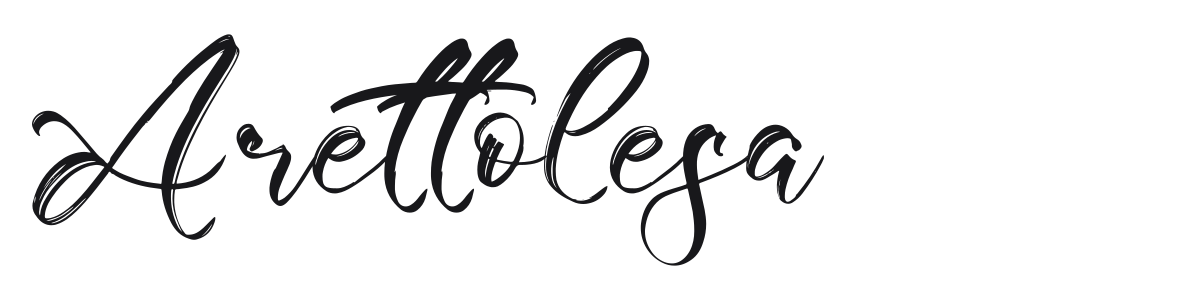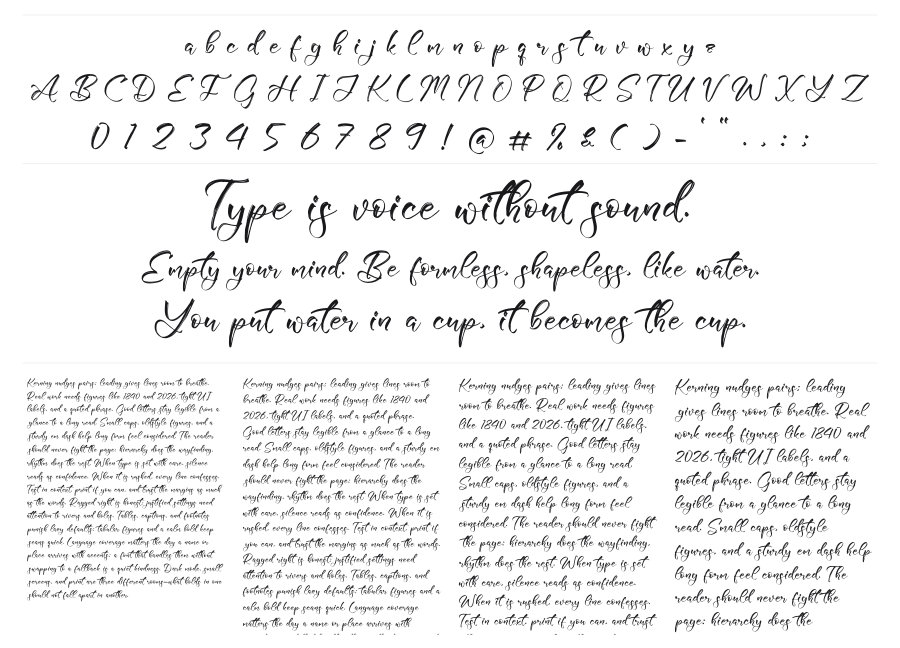
Arettolesa
Arettolesa is a lively modern brush script with bold, sweeping strokes and an exuberant, hand-painted character. High contrast between thick stems and wispy hairlines gives it a calligraphic energy, while the bouncy baseline and looping swashes keep it feeling warm rather than stiff. It reads effortlessly at large sizes and brings immediate personality to wedding stationery, packaging, and brand identity work.